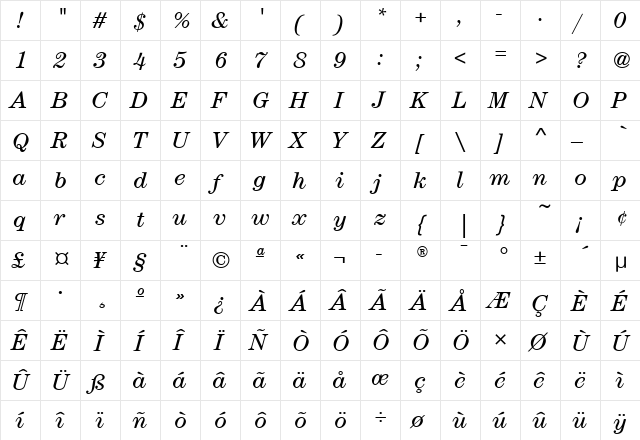
CenturyBookITC Italic
Design Context for CenturyBookITC Typeface
CenturyBookITC is a composed and adaptable typeface that performs quietly and consistently across a wide range of design contexts. The dynamic lean of this cut emphasises speed and emphasis in any layout.
Pro Tip: Use CenturyBookITC for emphasis, pull quotes, and subheadings where its slanted energy can add rhythm to the layout.